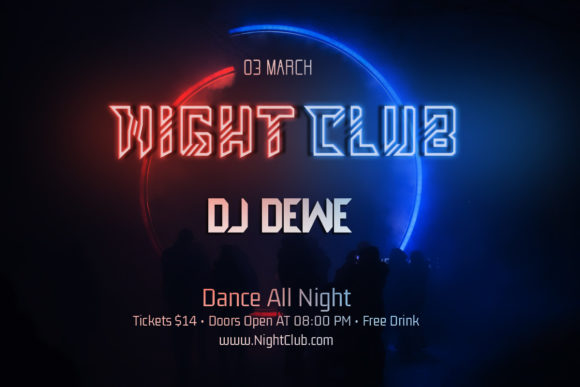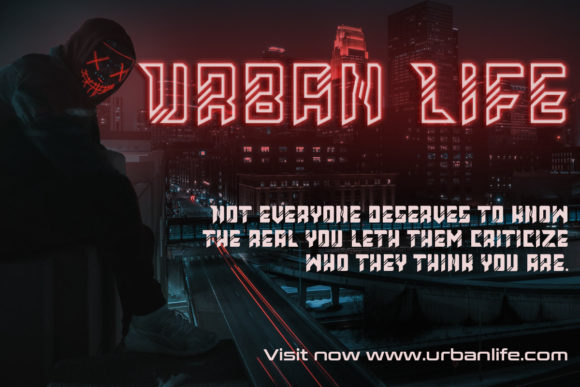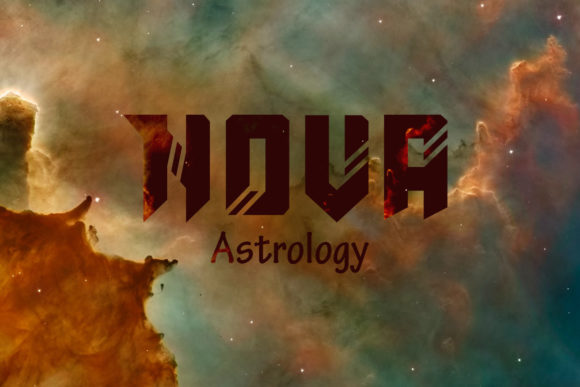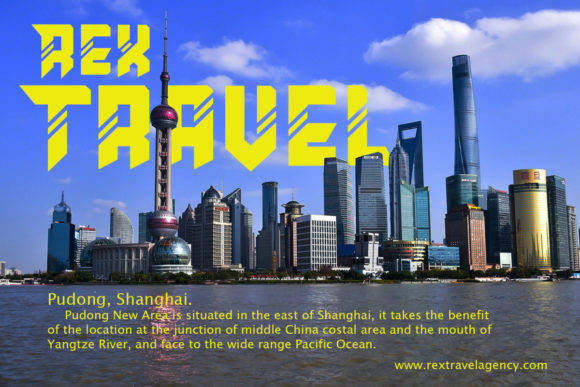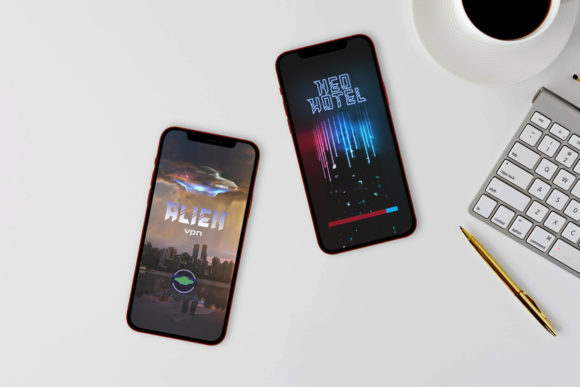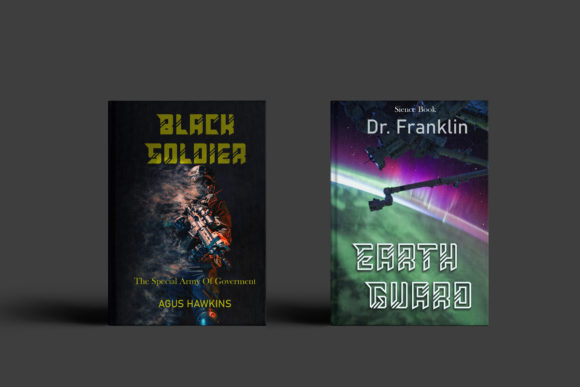
Introducing Anticode Font: The Ultimate Display Font for Bold Designs
In the world of typography, fonts play a crucial role in conveying the tone and personality of a design. When it comes to creating visually striking and unique designs, a bold and thick lettered font is often the go-to choice. This is where Anticode Font comes in – a cool, bold, and thick lettered display font that’s perfect for adding a touch of personality to your designs.
What is Anticode Font?
Anticode Font is a display font that’s designed to make a statement. With its bold and thick letters, it’s ideal for writing web designs, business cards, or pretty much anything else that requires a unique touch. Whether you’re a designer, craftsperson, or simply someone who loves to dabble in typography, Anticode Font is a versatile and stylish choice that’s sure to impress.
Key Features of Anticode Font
- Bold and Thick Letters: Anticode Font features bold and thick letters that are perfect for creating eye-catching designs.
- Unique Touch: The font’s unique design ensures that your designs stand out from the crowd and leave a lasting impression.
- Versatile: Anticode Font is suitable for a wide range of design applications, from web designs and business cards to posters and flyers.
- Easy to Read: Despite its bold design, Anticode Font is easy to read, making it perfect for use in a variety of contexts.
Why Choose Anticode Font?
So, why should you choose Anticode Font for your design needs? Here are just a few reasons:
- Adds Personality to Your Designs: Anticode Font adds a touch of personality to your designs, setting them apart from more generic and bland fonts.
- Perfect for Headings and Titles: The font’s bold design makes it perfect for use in headings and titles, where you want to grab the reader’s attention.
- Easy to Pair with Other Fonts: Anticode Font is easy to pair with other fonts, making it versatile and flexible.
Design Applications for Anticode Font
Anticode Font is suitable for a wide range of design applications, including:
- Web Design: Use Anticode Font to add a bold and eye-catching touch to your website’s headings and titles.
- Business Cards: Make a statement with your business cards by using Anticode Font to showcase your name and contact information.
- Posters and Flyers: Anticode Font is perfect for creating bold and eye-catching posters and flyers that grab the reader’s attention.
- Social Media Graphics: Use Anticode Font to add a touch of personality to your social media graphics and stand out from the crowd.
Tips for Using Anticode Font
Here are a few tips for using Anticode Font effectively in your designs:
- Use it Sparingly: While Anticode Font is bold and eye-catching, it’s best to use it sparingly to avoid overwhelming the reader.
- Pair it with Other Fonts: Experiment with pairing Anticode Font with other fonts to create a unique and visually appealing design.
- Experiment with Colors: Don’t be afraid to experiment with different colors to find the perfect combination that works with Anticode Font.
In conclusion, Anticode Font is a cool, bold, and thick lettered display font that’s perfect for adding a unique touch to your designs. With its versatile design and wide range of applications, it’s an excellent choice for designers, craftspersons, and anyone looking to create visually striking designs. Whether you’re looking to create a bold and eye-catching website, business card, or poster, Anticode Font is sure to impress.